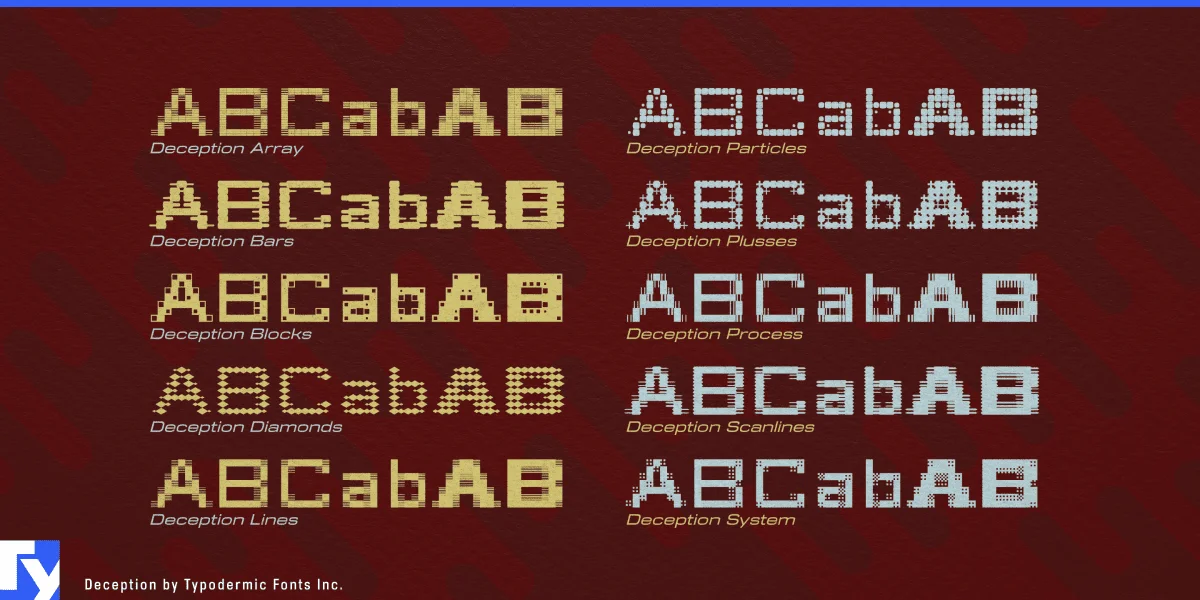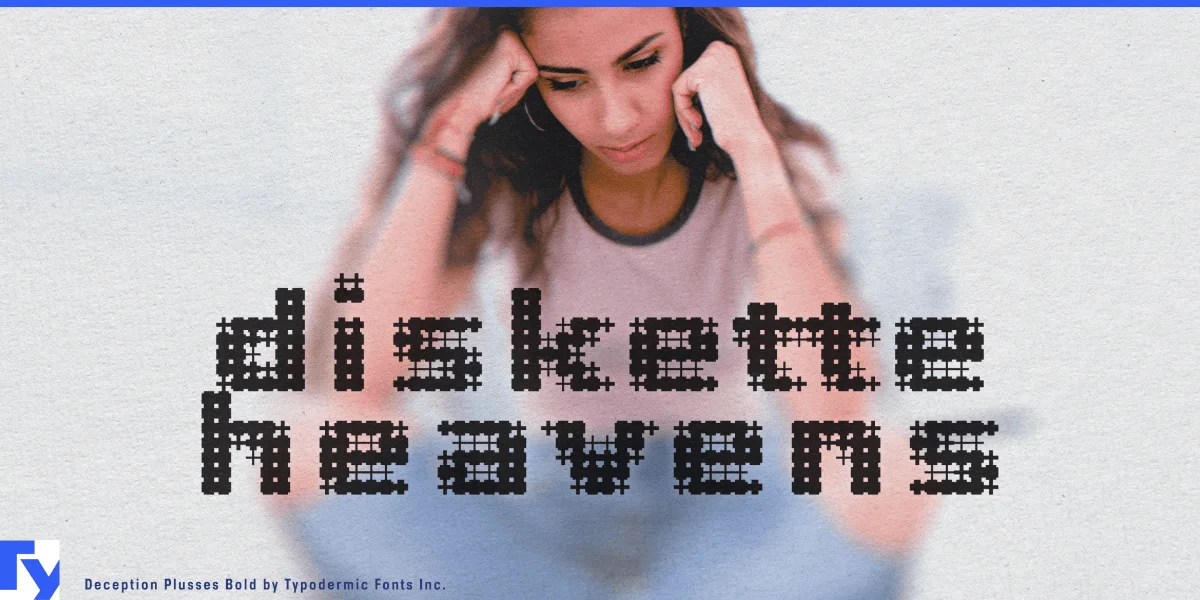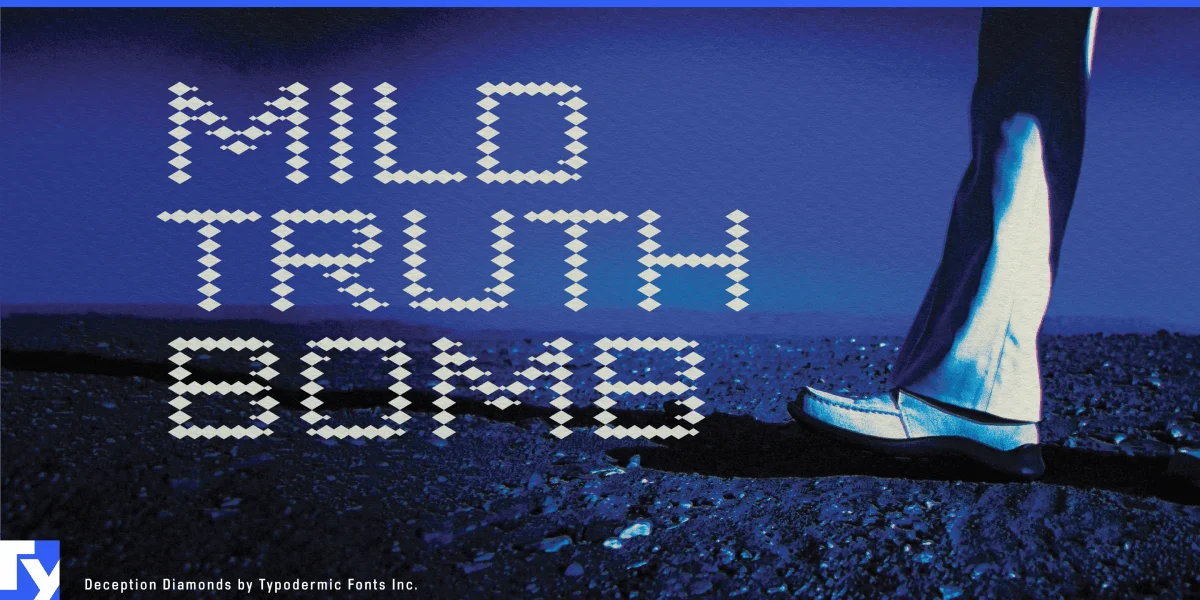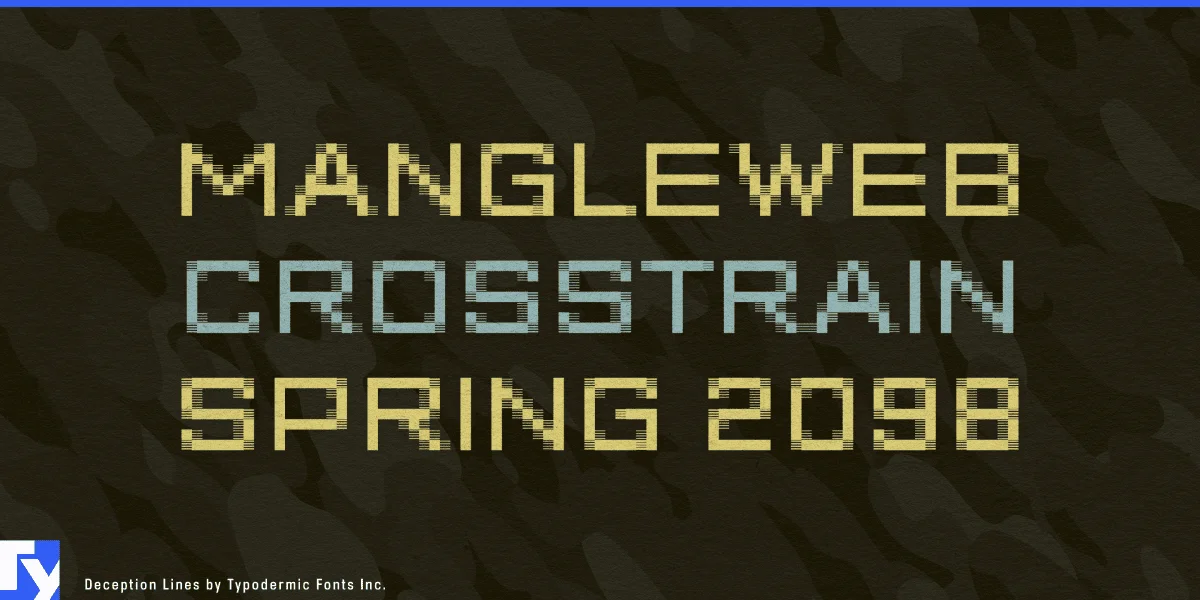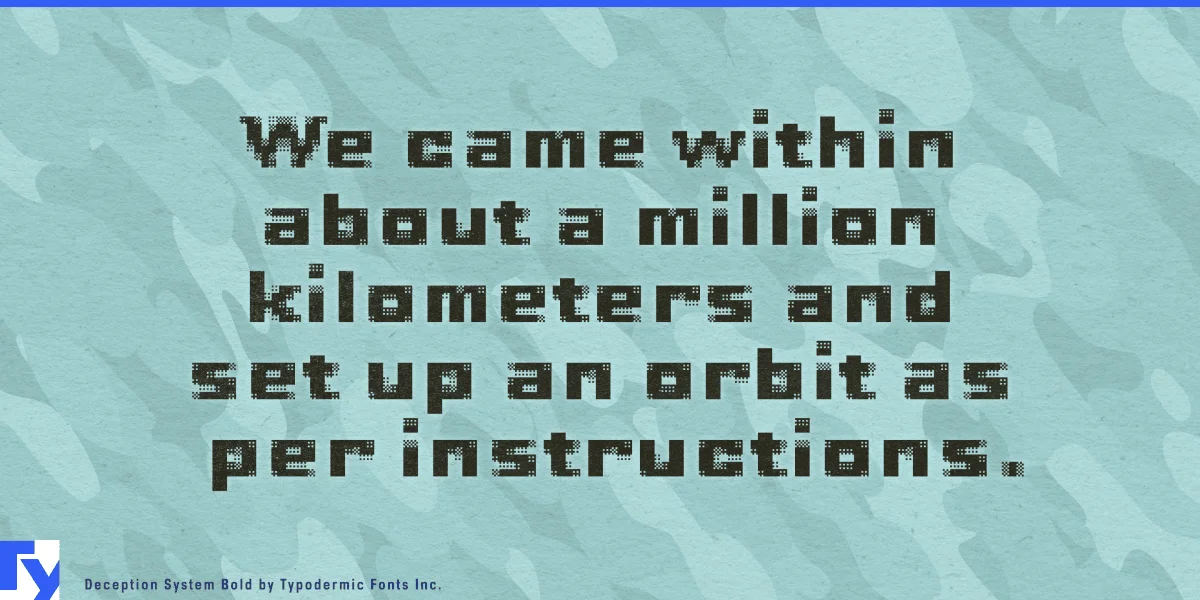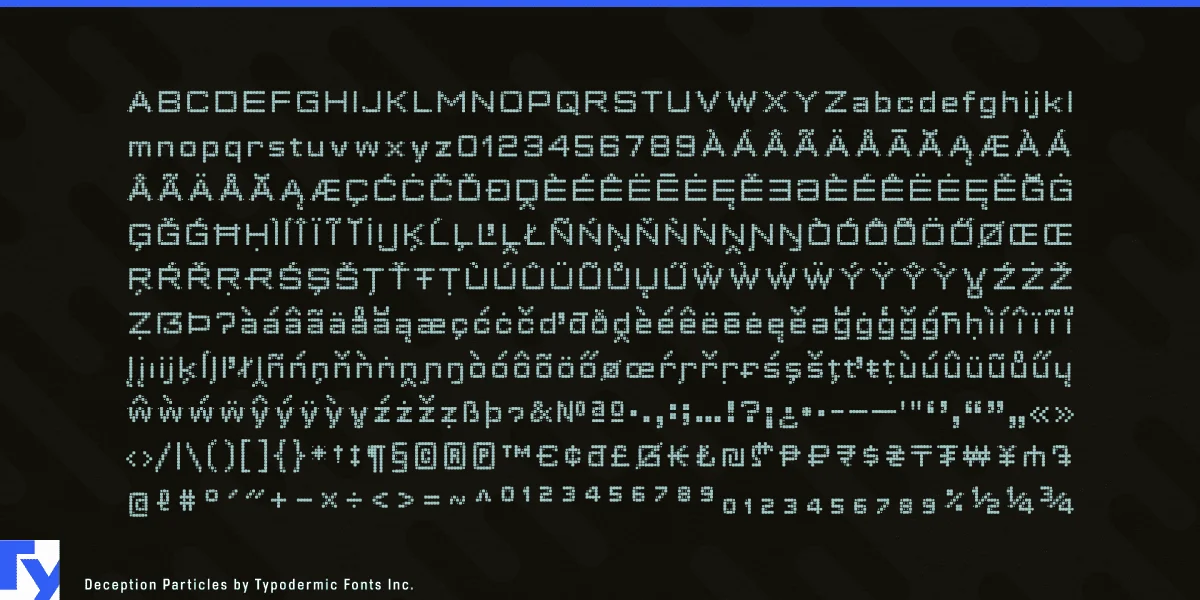
Deception is a pixel typeface that refuses to sit still. Built from four master pixels and rendered in shades of gray, it softens the usual blocky edges of bitmap lettering, giving each glyph a lively low-resolution texture.
The collection explores a range of pixel behaviors—stacked grids, stretched bands, dotted fades, scanline patterns, and glitch-like noise—each creating a different visual rhythm. Ideal for indie games, tech branding, posters, or vaporwave aesthetics, Deception turns raw digital artifacts into bold, expressive typography.